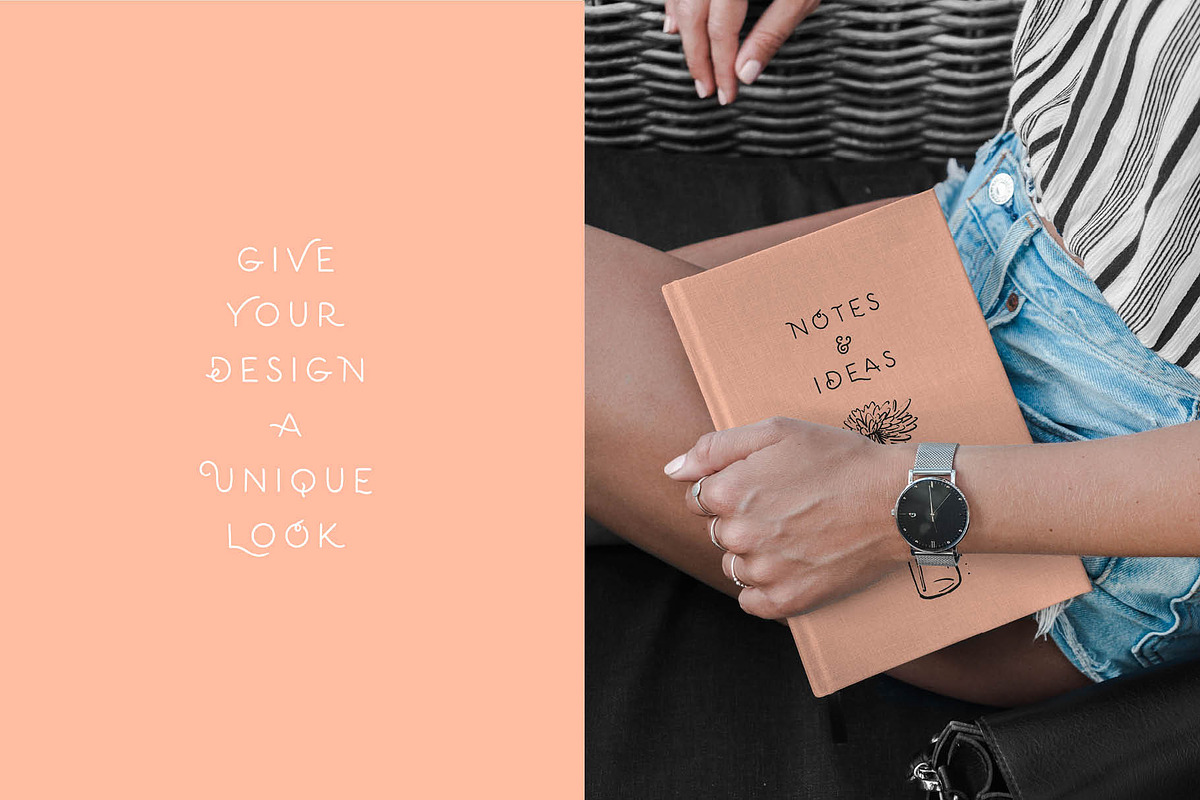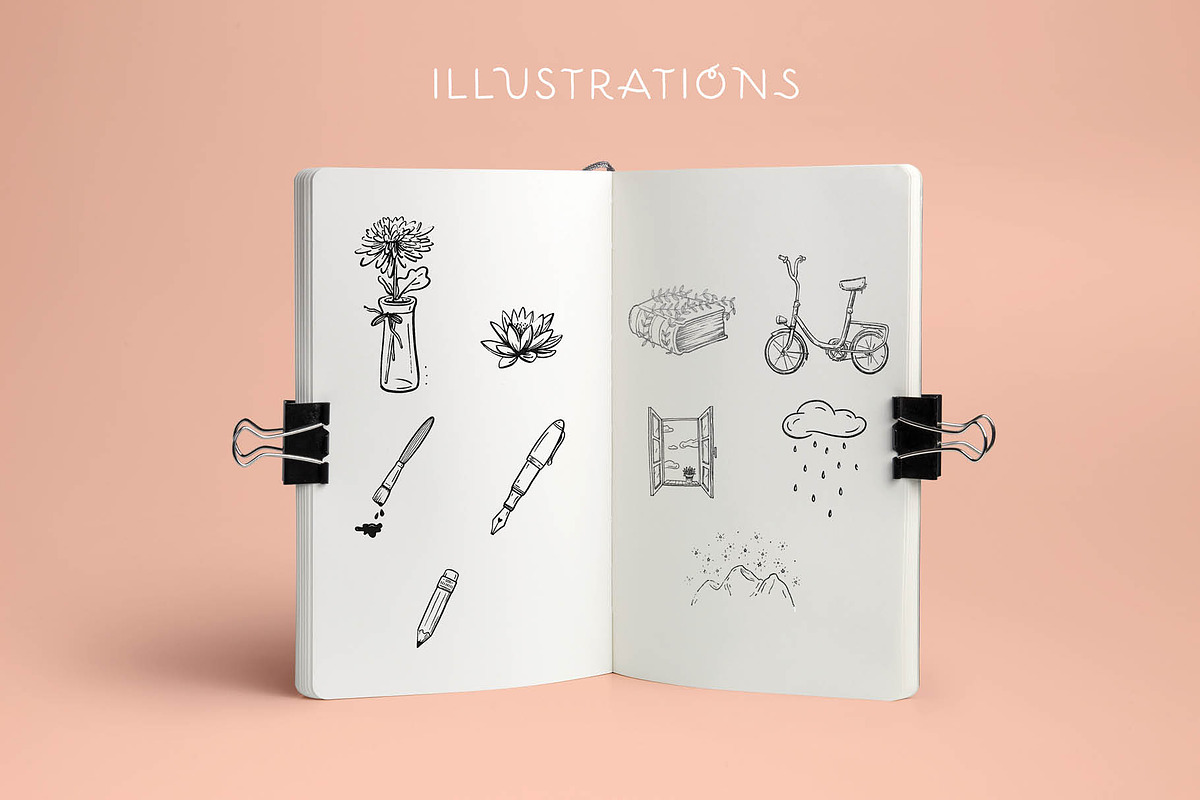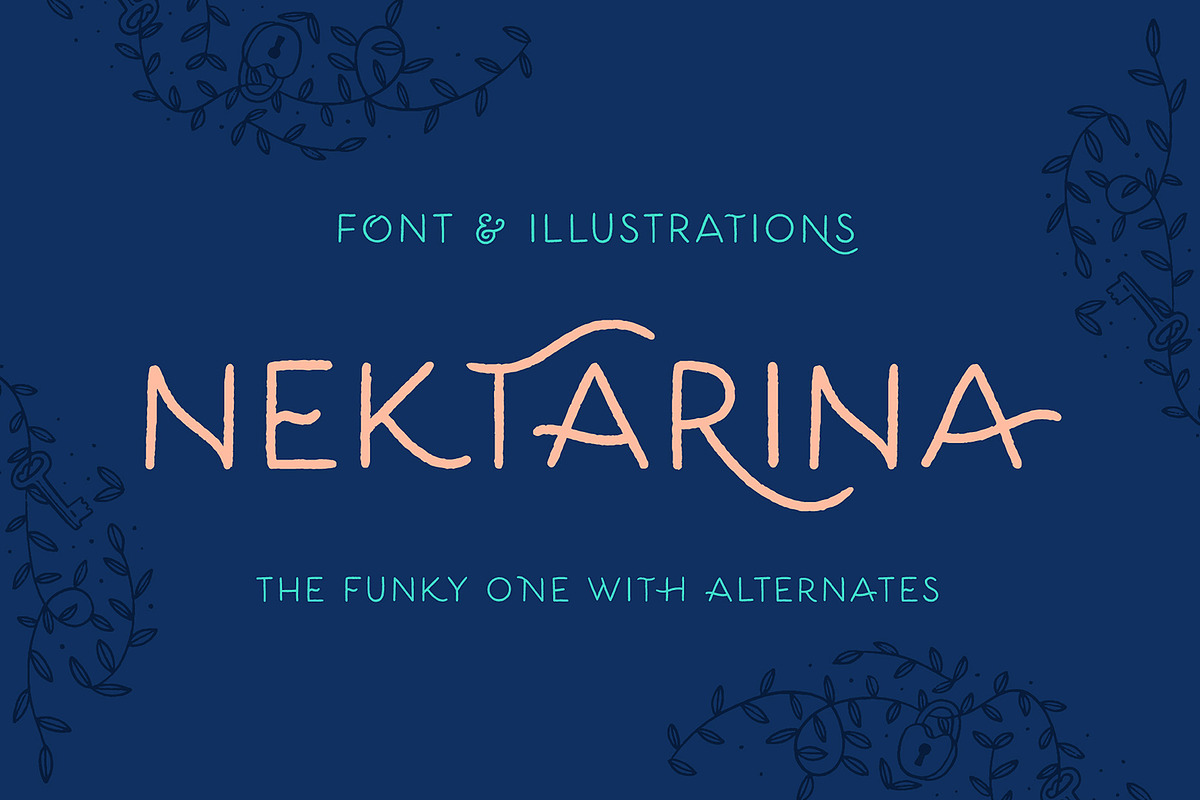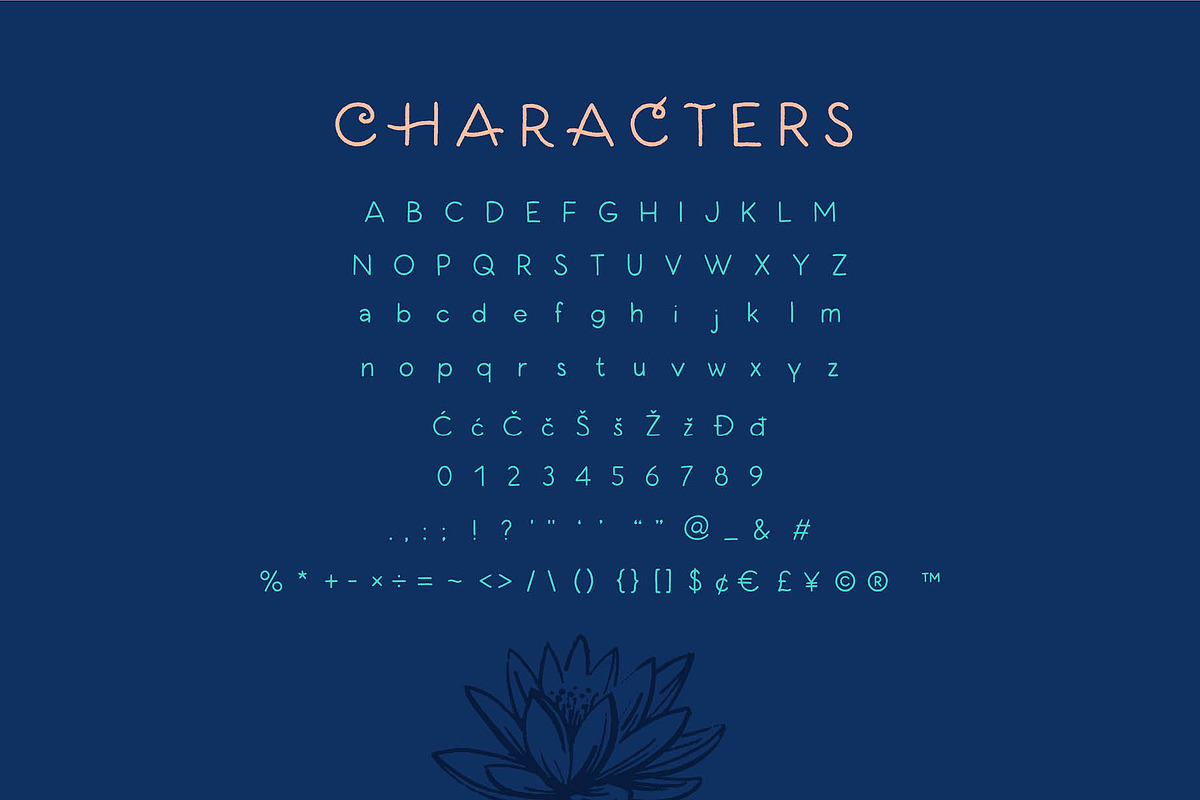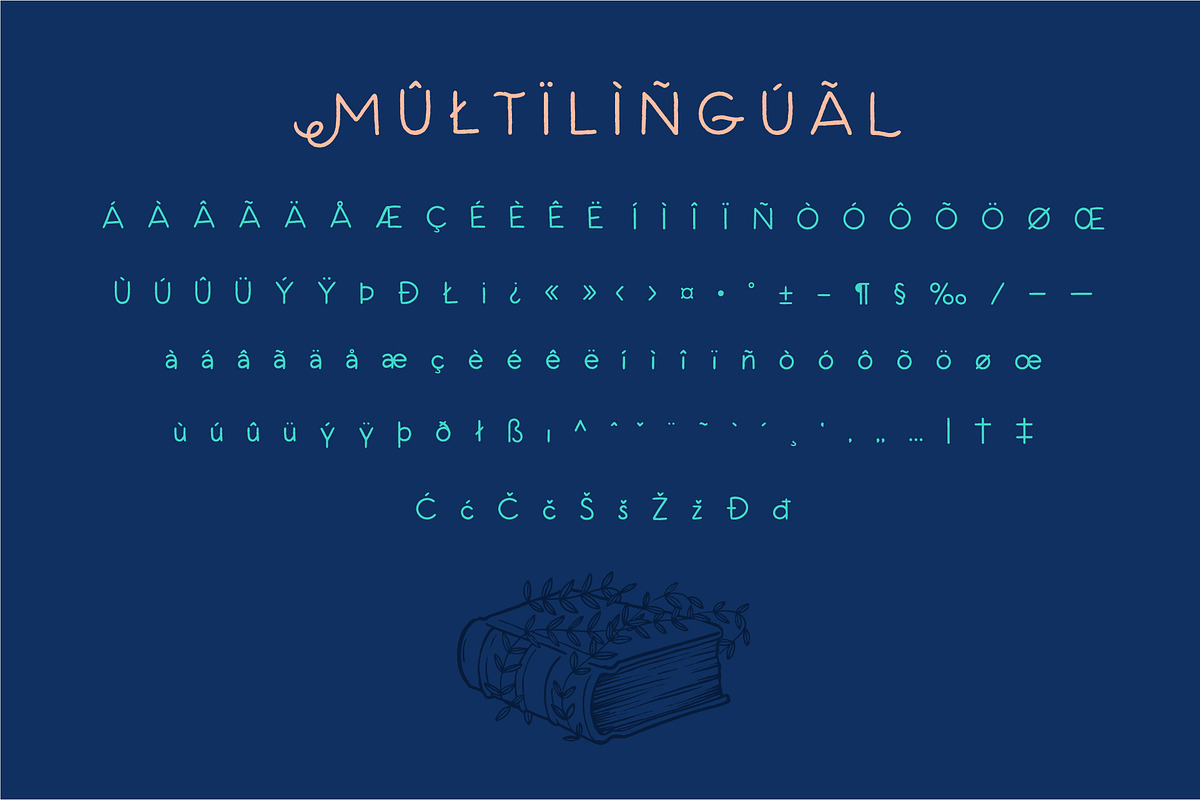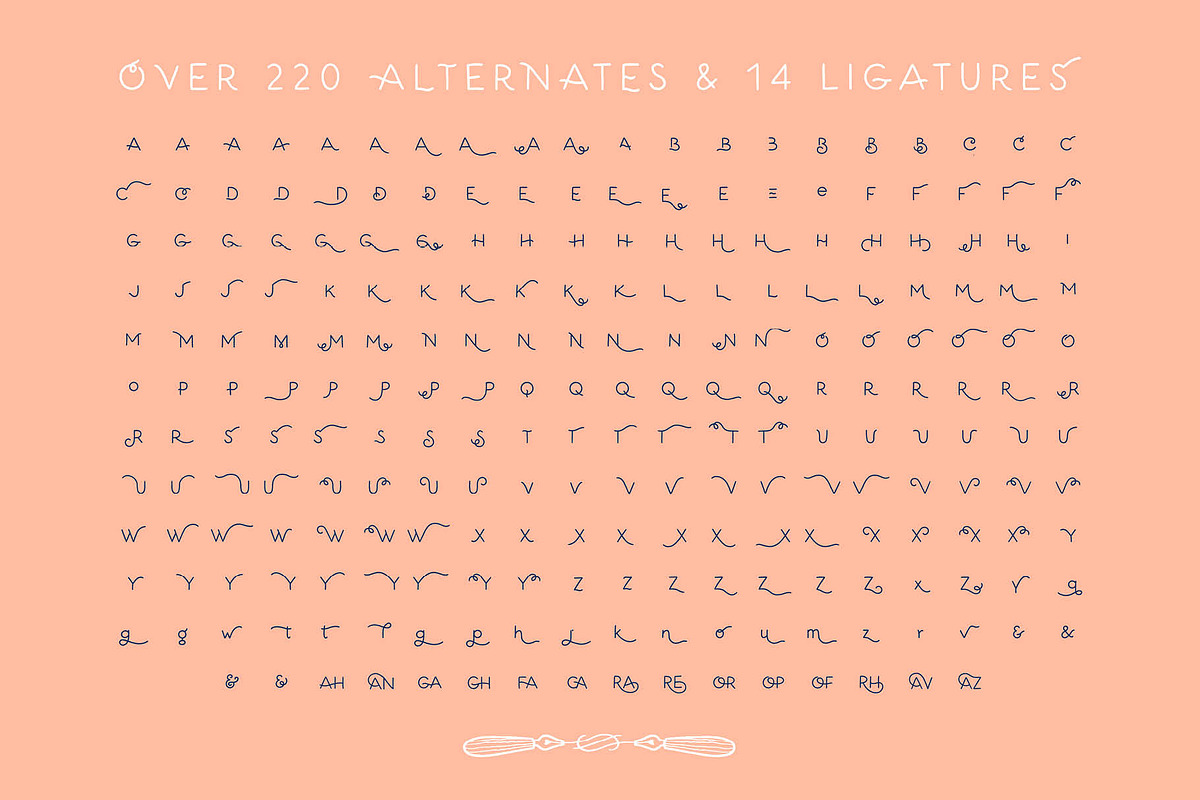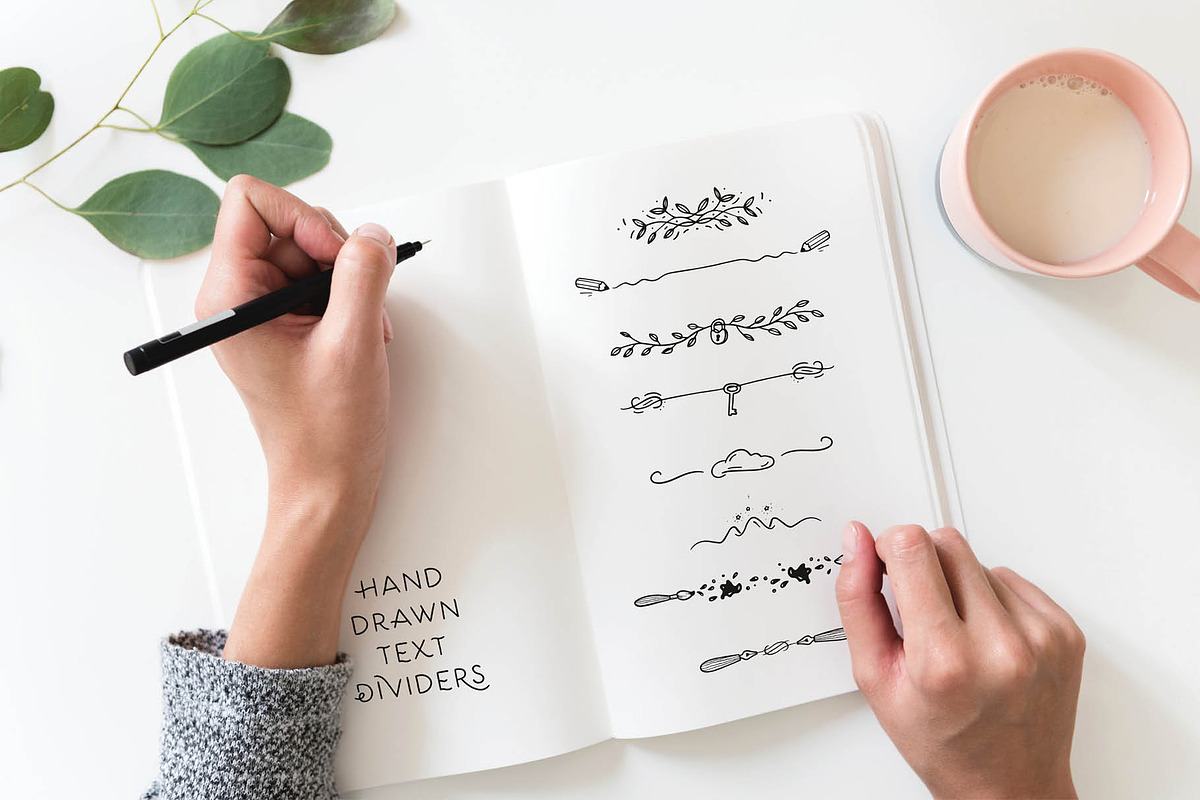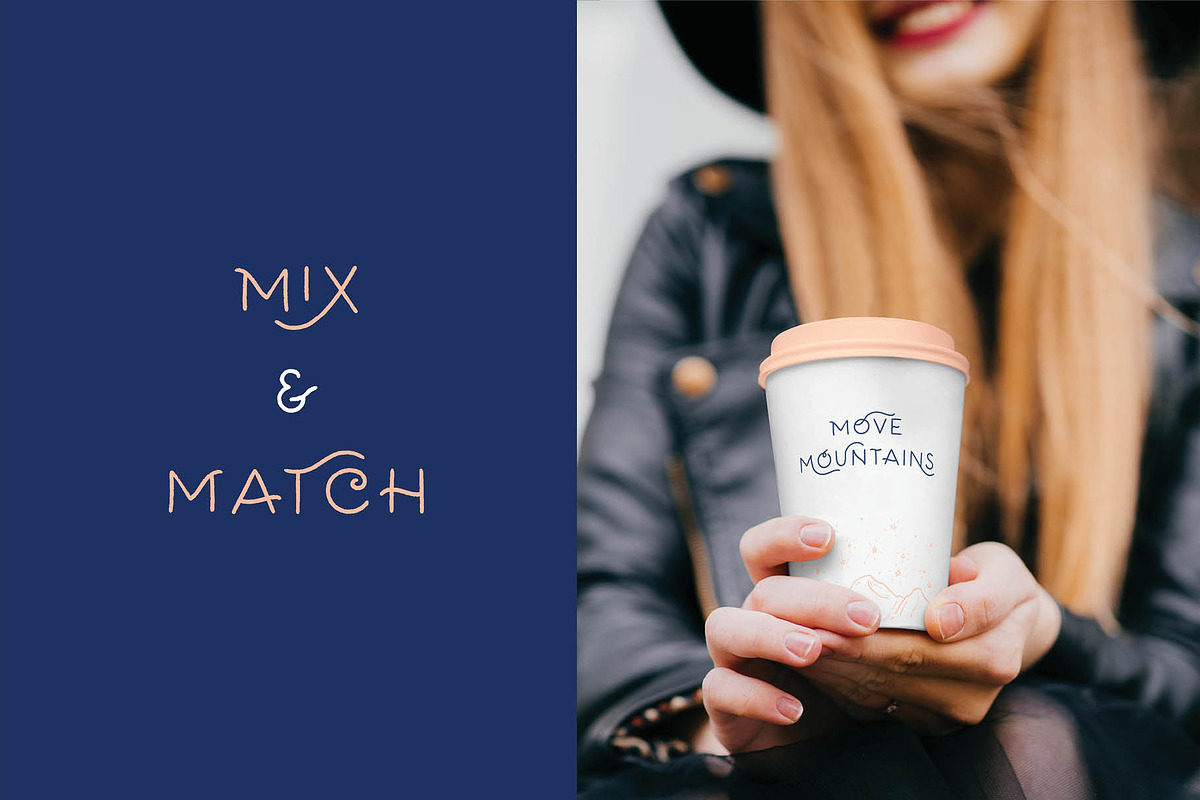
Nektarina Handwritten Font & Extras
Nektarina is a handwritten funky font with over 220 beautiful alternate characters and ligatures. It includes uppercase and lowercase characters, numbers, symbols & punctuation.
Mix and match letters and give your design a unique look.
Nektarina is great for logos, branding, headlines, invitations, quotes, and more.
- You can combine font with illustrations, text dividers, and wreaths - all hand-drawn and in vectors that are included in the pack.